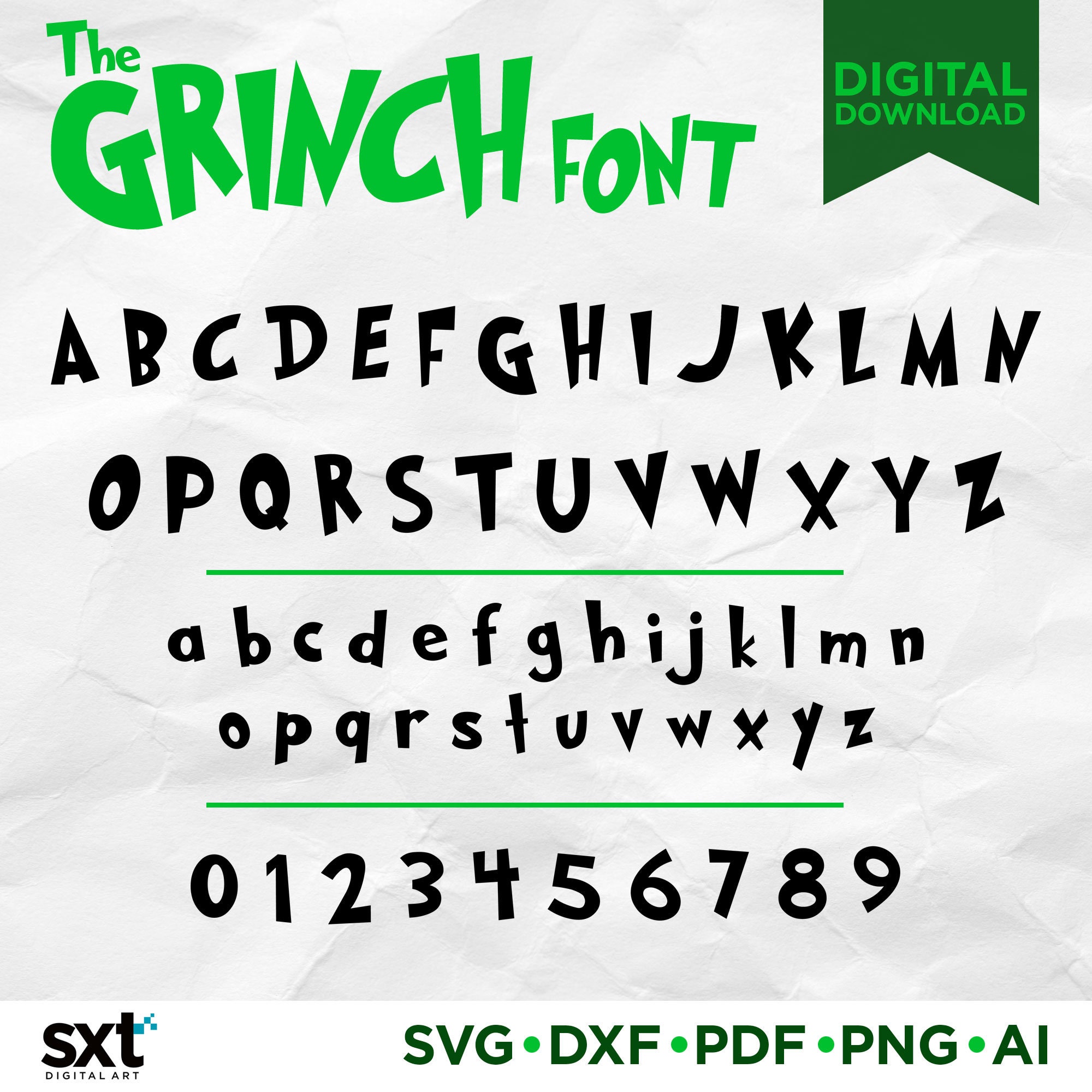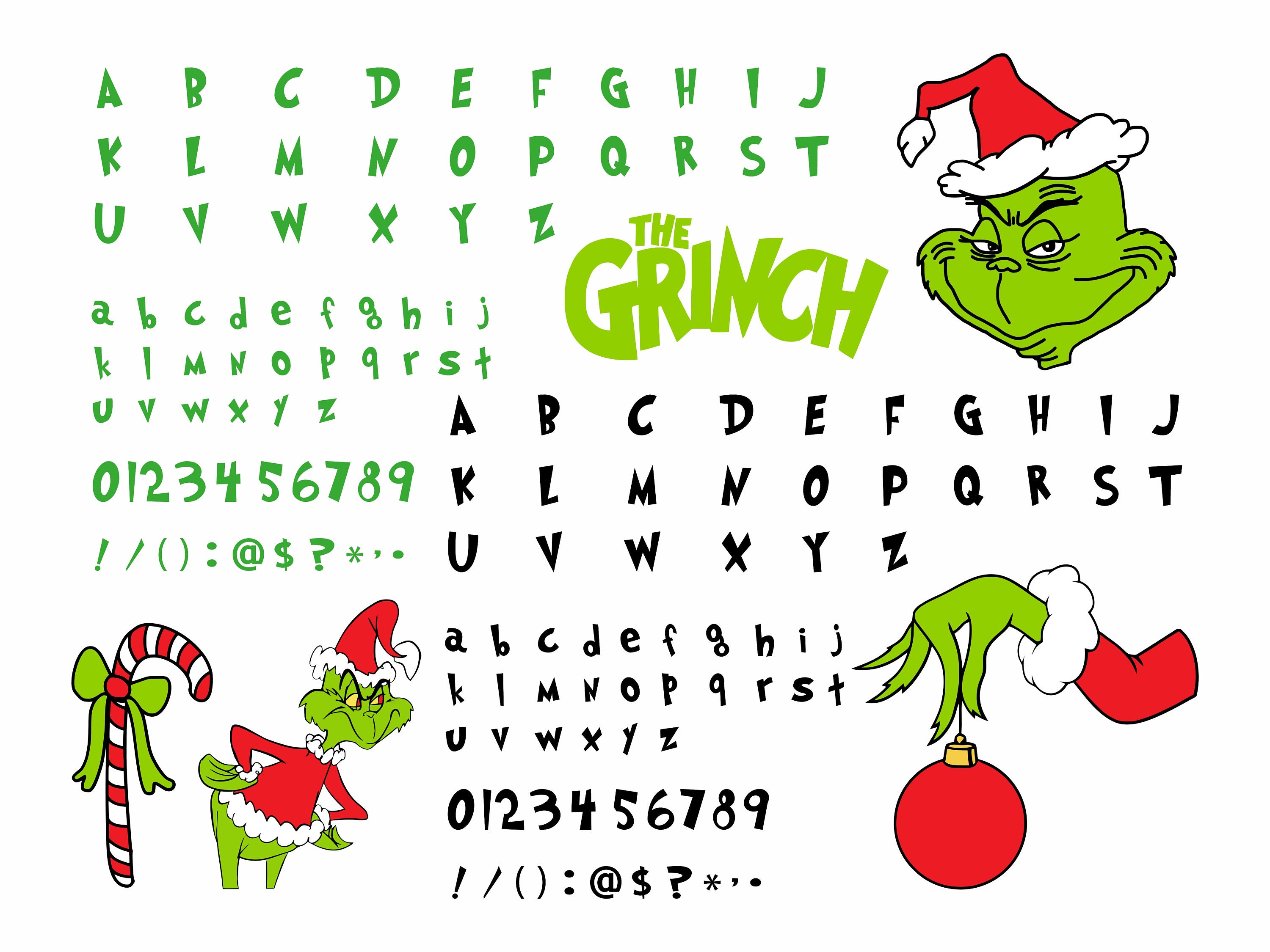
Grinch Font On Cricut - Grinched font is available for free download for noncommercial, personal projects. Grinched font | dafont.com english français español deutsch italiano português. Grinched font, aka grinch font is a fancy, cartoon font designed by sharkshock. The font can easily be found in cricut’s design. Yes, cricut does have a grinch font! You can download the grinch face from your member’s page; It’s perfect for creating holiday cards and other projects featuring the iconic dr seuss character. This video will take you step by. Did you know you can purchase/download your own font files and add them to cricut design space in just a few simple clicks?!.more.
Grinched font is available for free download for noncommercial, personal projects. Yes, cricut does have a grinch font! Grinched font, aka grinch font is a fancy, cartoon font designed by sharkshock. This video will take you step by. The font can easily be found in cricut’s design. Did you know you can purchase/download your own font files and add them to cricut design space in just a few simple clicks?!.more. It’s perfect for creating holiday cards and other projects featuring the iconic dr seuss character. You can download the grinch face from your member’s page; Grinched font | dafont.com english français español deutsch italiano português.
Did you know you can purchase/download your own font files and add them to cricut design space in just a few simple clicks?!.more. The font can easily be found in cricut’s design. You can download the grinch face from your member’s page; Grinched font | dafont.com english français español deutsch italiano português. Grinched font is available for free download for noncommercial, personal projects. Grinched font, aka grinch font is a fancy, cartoon font designed by sharkshock. Yes, cricut does have a grinch font! It’s perfect for creating holiday cards and other projects featuring the iconic dr seuss character. This video will take you step by.
Grinched font | dafont.com english français español deutsch italiano português. This video will take you step by. Yes, cricut does have a grinch font! Did you know you can purchase/download your own font files and add them to cricut design space in just a few simple clicks?!.more. It’s perfect for creating holiday cards and other projects featuring the iconic dr.
The font can easily be found in cricut’s design. Grinched font | dafont.com english français español deutsch italiano português. Yes, cricut does have a grinch font! Did you know you can purchase/download your own font files and add them to cricut design space in just a few simple clicks?!.more. This video will take you step by.
You can download the grinch face from your member’s page; Grinched font is available for free download for noncommercial, personal projects. The font can easily be found in cricut’s design. This video will take you step by. Did you know you can purchase/download your own font files and add them to cricut design space in just a few simple clicks?!.more.
Yes, cricut does have a grinch font! Grinched font | dafont.com english français español deutsch italiano português. Grinched font, aka grinch font is a fancy, cartoon font designed by sharkshock. Grinched font is available for free download for noncommercial, personal projects. The font can easily be found in cricut’s design.
This video will take you step by. Grinched font | dafont.com english français español deutsch italiano português. Did you know you can purchase/download your own font files and add them to cricut design space in just a few simple clicks?!.more. Yes, cricut does have a grinch font! You can download the grinch face from your member’s page;
Grinch Font SVG Cricut, Grinch Font OTF, Christmas Font Chri Inspire
Grinched font | dafont.com english français español deutsch italiano português. The font can easily be found in cricut’s design. Yes, cricut does have a grinch font! Grinched font is available for free download for noncommercial, personal projects. You can download the grinch face from your member’s page;
Funny Grinch Font Free in 2022 Grinch, Free font, Mr grinch
Yes, cricut does have a grinch font! Grinched font | dafont.com english français español deutsch italiano português. The font can easily be found in cricut’s design. It’s perfect for creating holiday cards and other projects featuring the iconic dr seuss character. This video will take you step by.
Grinch Font SVG, Grinch Alphabet svg, Grinch Fon Inspire
Yes, cricut does have a grinch font! Grinched font, aka grinch font is a fancy, cartoon font designed by sharkshock. This video will take you step by. You can download the grinch face from your member’s page; It’s perfect for creating holiday cards and other projects featuring the iconic dr seuss character.
Grinch Font Svg, Grinch Font, Grinch Letters, Grinch
This video will take you step by. Grinched font, aka grinch font is a fancy, cartoon font designed by sharkshock. Yes, cricut does have a grinch font! Grinched font | dafont.com english français español deutsch italiano português. Did you know you can purchase/download your own font files and add them to cricut design space in just a few simple clicks?!.more.
The grinch font GRINCH font svg grinch font for circut & Etsy
The font can easily be found in cricut’s design. Grinched font is available for free download for noncommercial, personal projects. It’s perfect for creating holiday cards and other projects featuring the iconic dr seuss character. You can download the grinch face from your member’s page; Yes, cricut does have a grinch font!
It’s Perfect For Creating Holiday Cards And Other Projects Featuring The Iconic Dr Seuss Character.
This video will take you step by. Grinched font is available for free download for noncommercial, personal projects. Grinched font, aka grinch font is a fancy, cartoon font designed by sharkshock. You can download the grinch face from your member’s page;